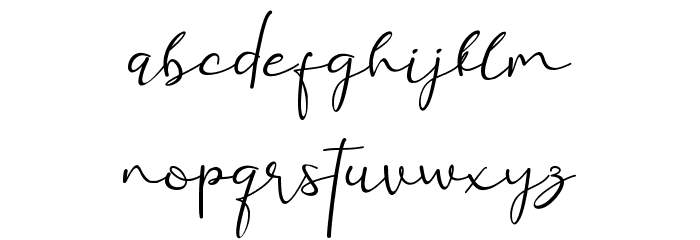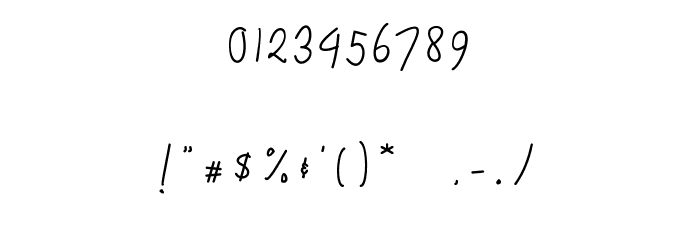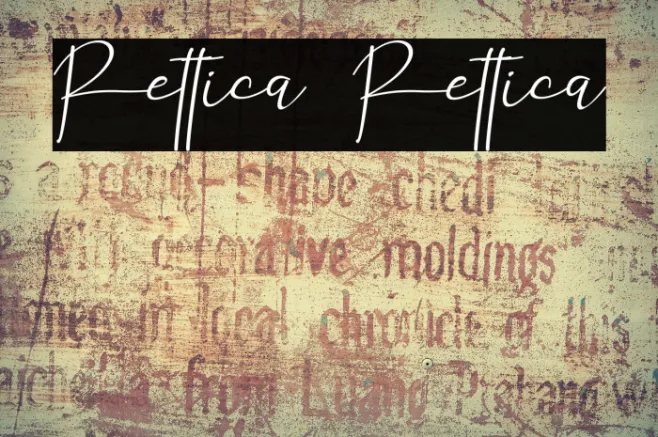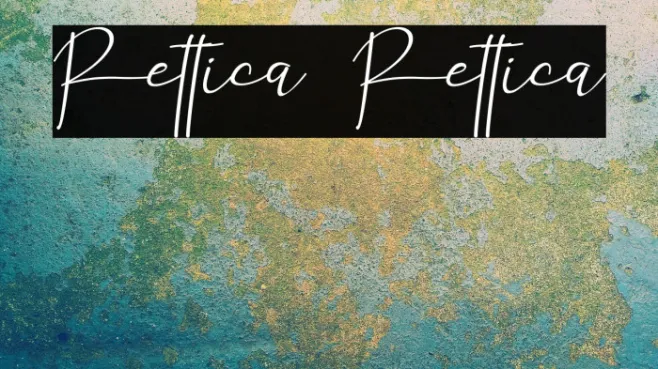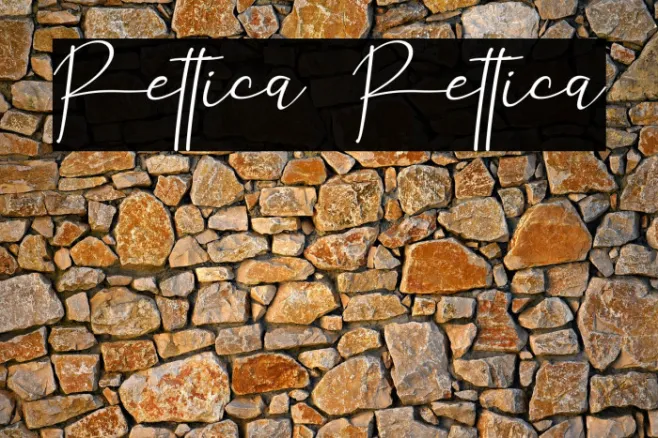
Rettica Font
This font features a flowing, handwritten style with elegant, elongated strokes and a casual yet sophisticated appearance. The uppercase letters are tall and slightly narrow, with a distinctive flair that adds character to each letterform. The lowercase letters maintain a consistent flow, with smooth connections and a natural, cursive feel. The numerals are clear and legible, matching the overall aesthetic of the font. Special characters are thoughtfully designed to complement the letterforms, making this font versatile for various design needs.
A flowing, handwritten font with elegant, elongated strokes and a casual sophistication.
- Proposed Projects: Ideal for wedding invitations, greeting cards, personal branding, and elegant packaging designs.
- Use Case: Logos, Invitations, Personal Branding